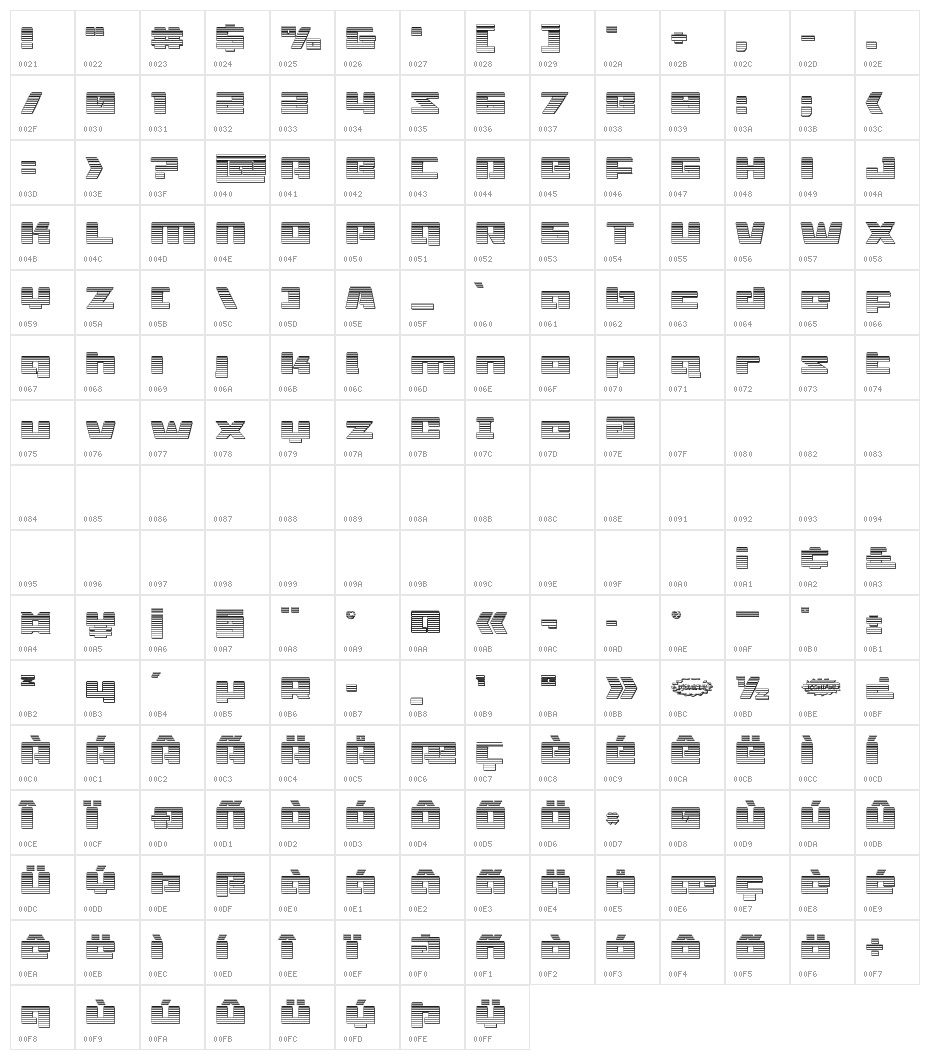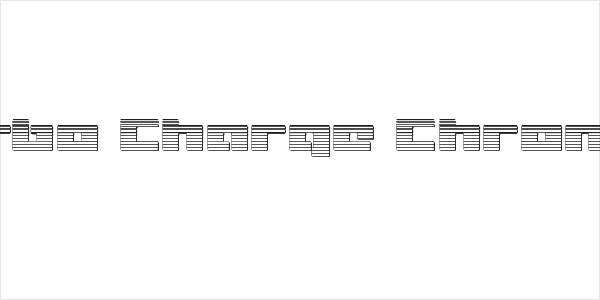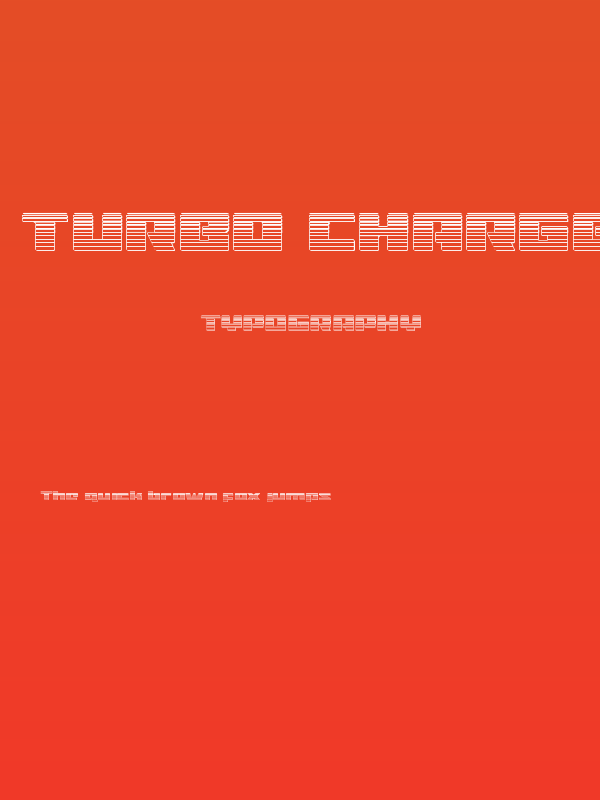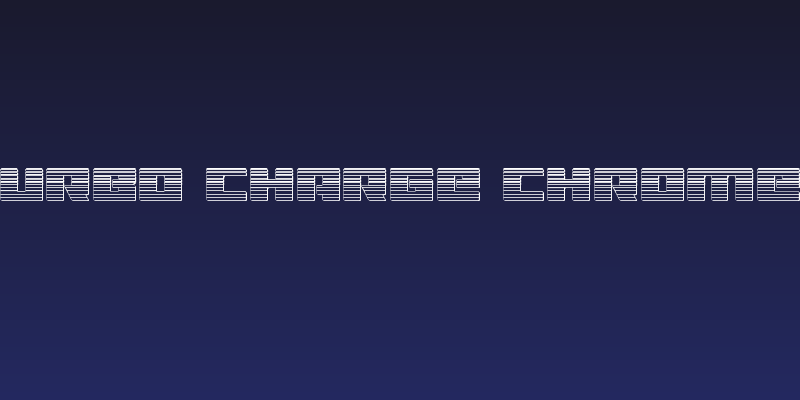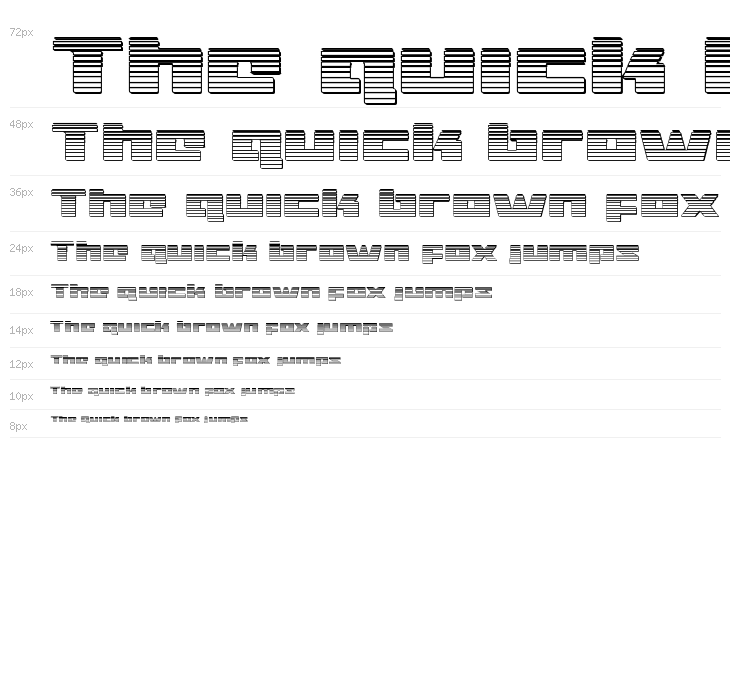
Turbo Charge Chromet Font
Turbo Charge Chromet Description
This font features a bold and futuristic design with a distinct three-dimensional effect created by parallel horizontal lines. Each character is constructed with a series of stacked lines that give it a layered, mechanical appearance, reminiscent of industrial or technological themes. The uppercase and lowercase letters maintain a consistent style, with sharp angles and a geometric structure. Numbers and special characters follow the same design principles, ensuring uniformity across the font. The overall look is striking and modern, making it suitable for projects that require a strong visual impact.
| Overall Style | Futuristic, Industrial |
| Proposed Projects | Ideal for technology branding, sci-fi posters, video game titles, and industrial-themed designs. |